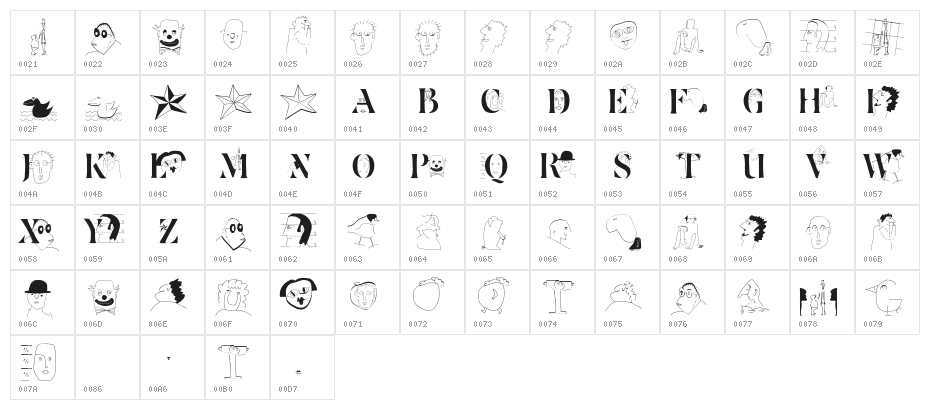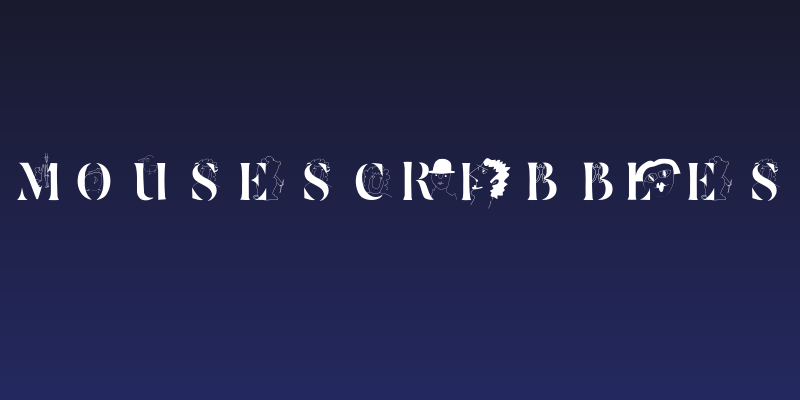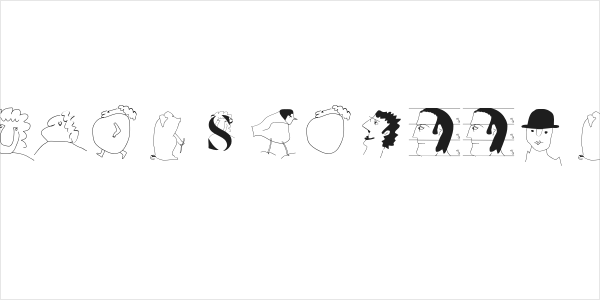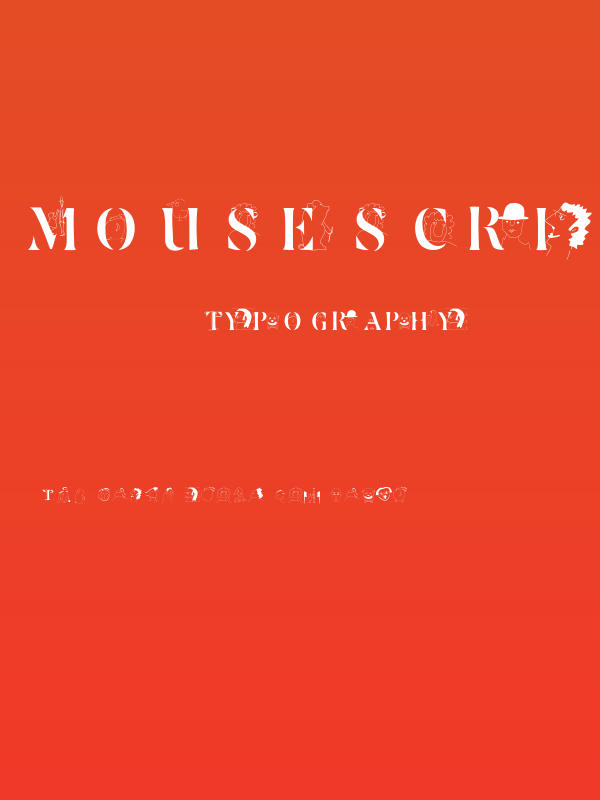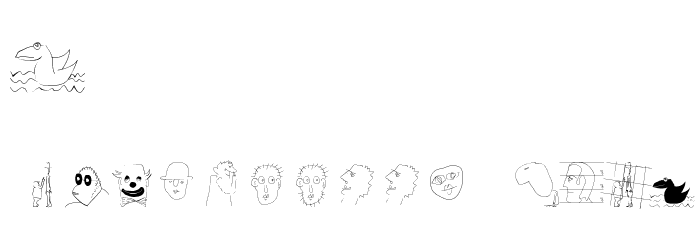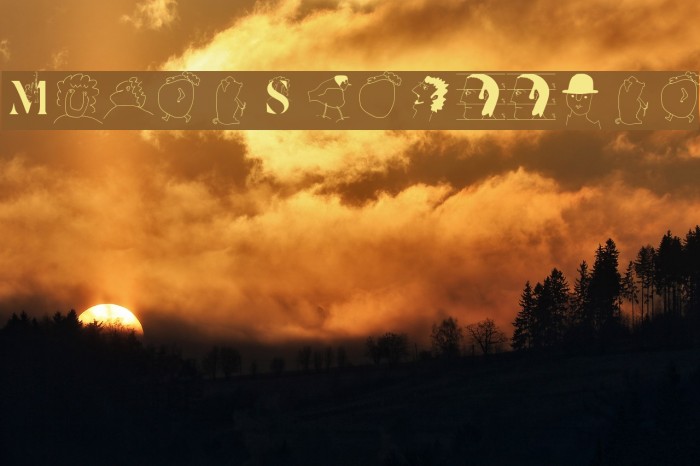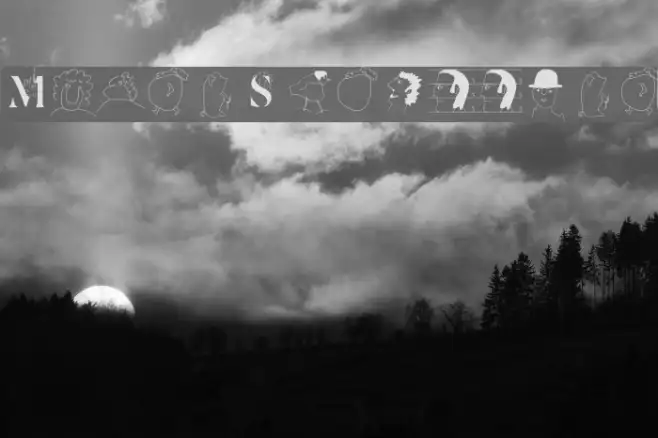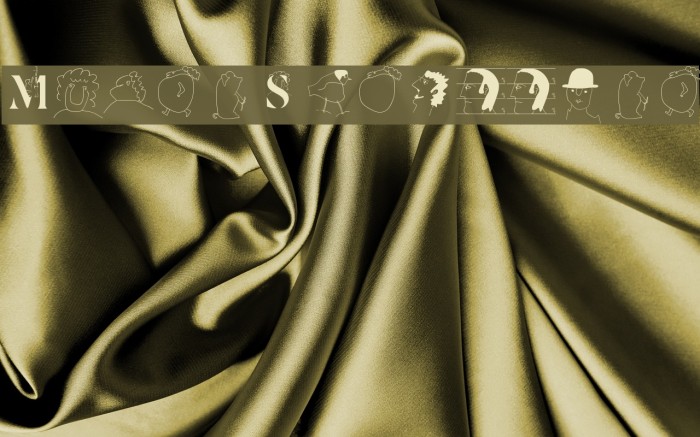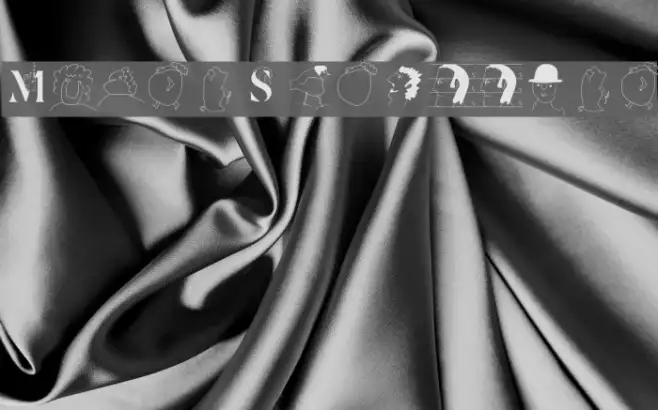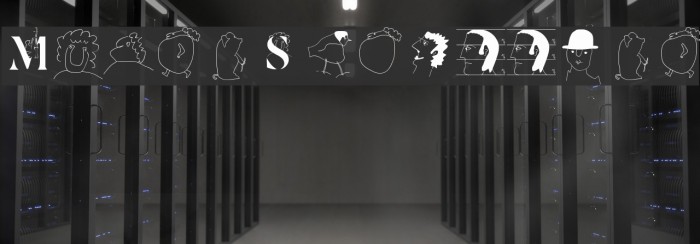
MouseScribbles Font
MouseScribbles Description
This font is a playful and whimsical design that incorporates cartoonish illustrations within each character. The uppercase letters are bold and feature unique, quirky drawings that add a sense of humor and creativity. The lowercase letters continue this theme with more detailed and expressive illustrations, making each character a small piece of art. The numbers and special characters also follow this artistic style, ensuring a cohesive look throughout. This font is perfect for projects that require a lighthearted and imaginative touch.
| Use Case | Logos, Posters, Creative Projects |
| Proposed Projects | Ideal for children's books, playful branding, creative posters, and artistic invitations. |